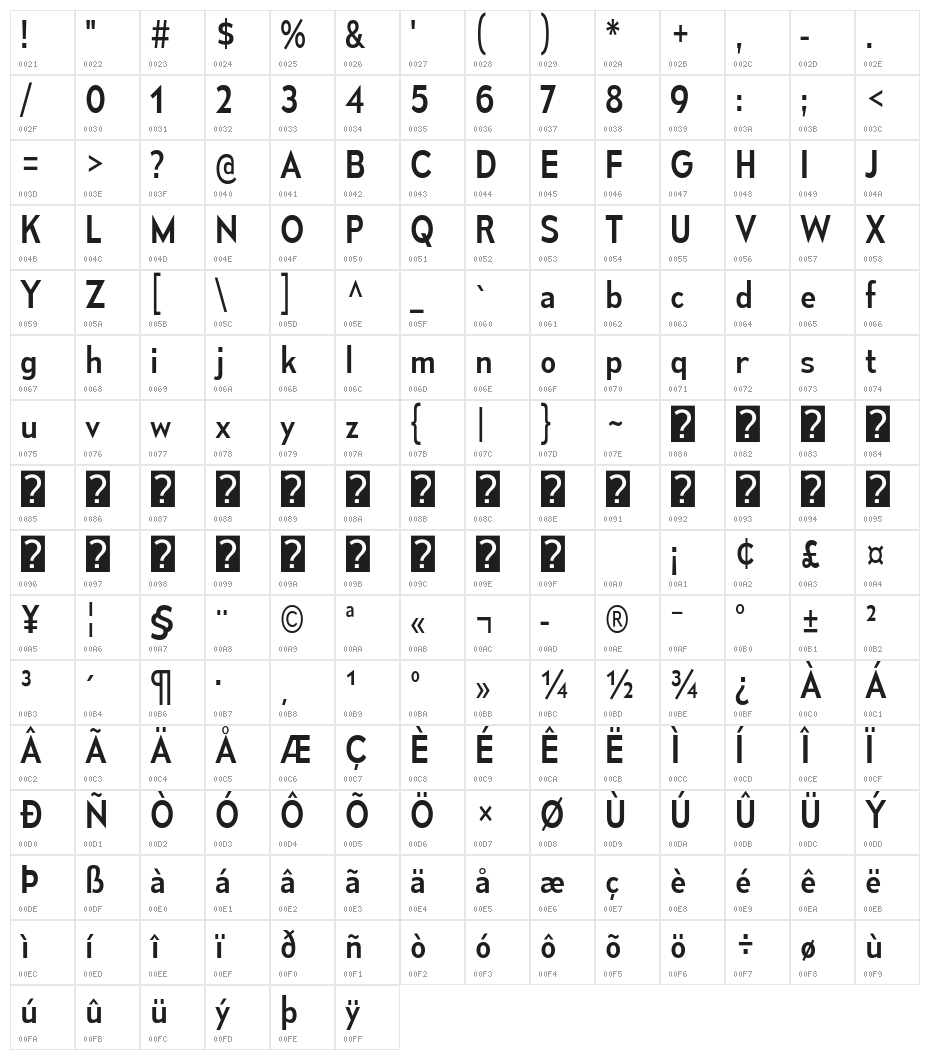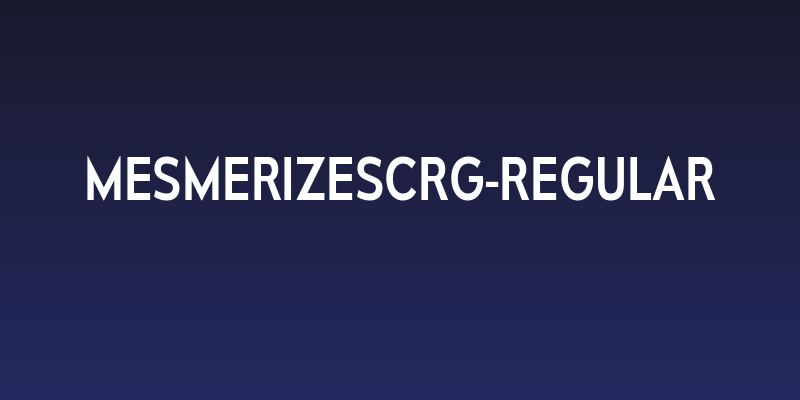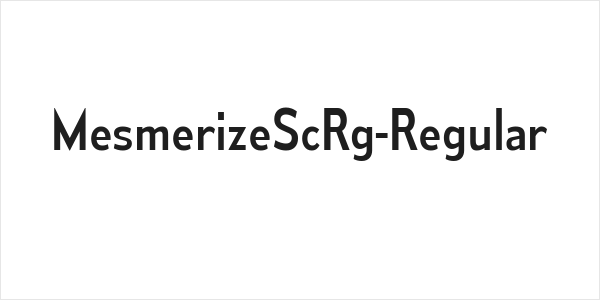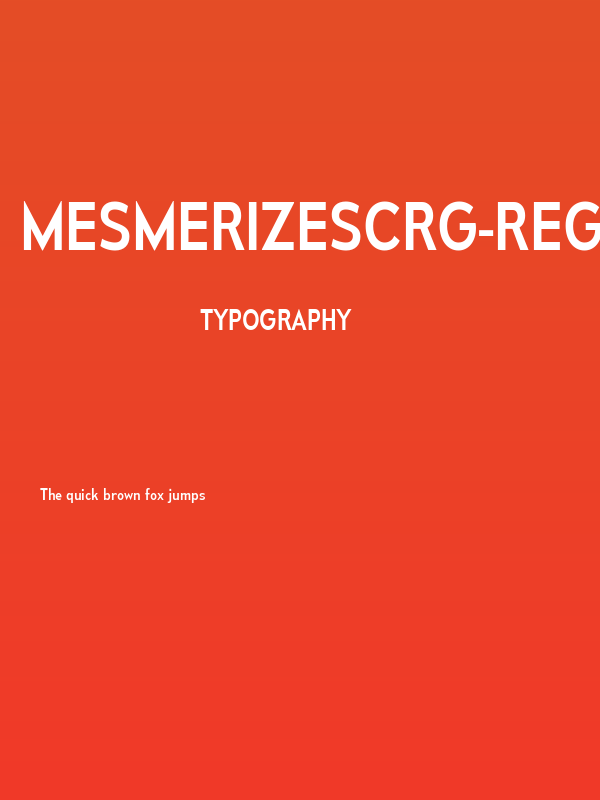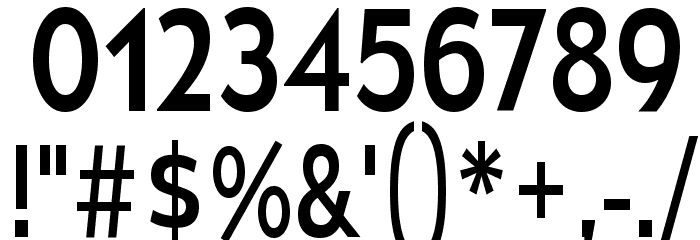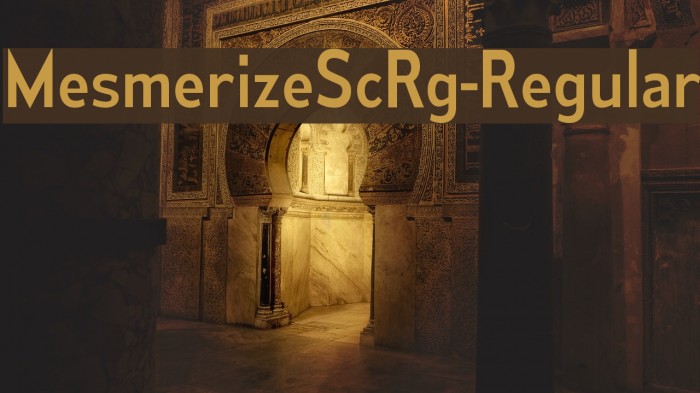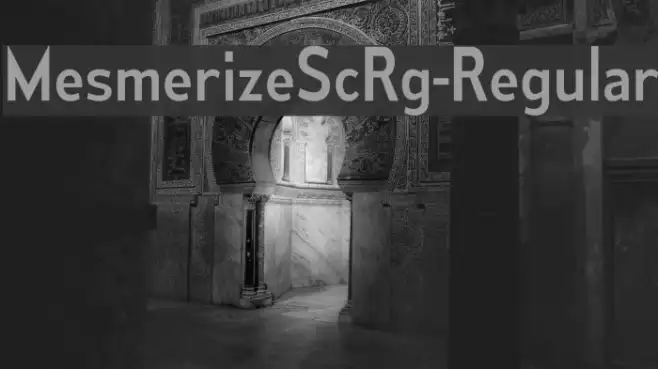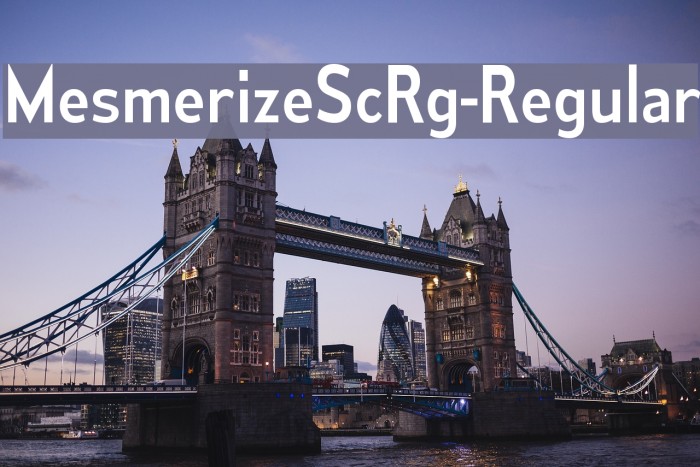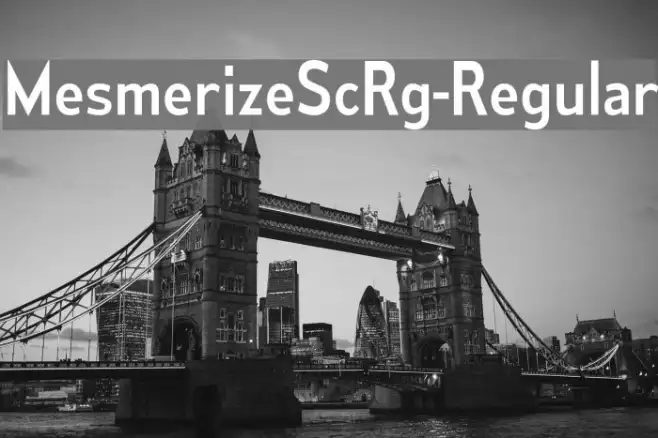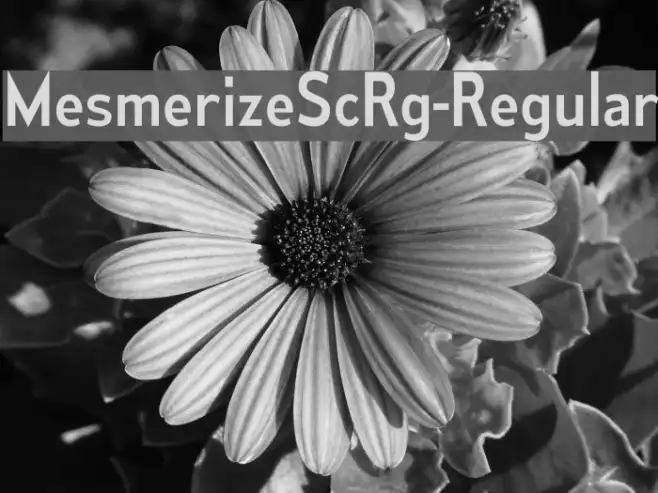
MesmerizeScRg-Regular Font
MesmerizeScRg-Regular Description
This font features a clean and modern sans-serif style, characterized by its geometric shapes and uniform stroke widths. The uppercase letters are bold and assertive, while the lowercase letters maintain a consistent and harmonious appearance. The numerals are clear and easily distinguishable, making them suitable for various applications. Special characters are well-defined, adding versatility to the font's usage. The overall design is straightforward and functional, ideal for conveying information in a clear and concise manner.